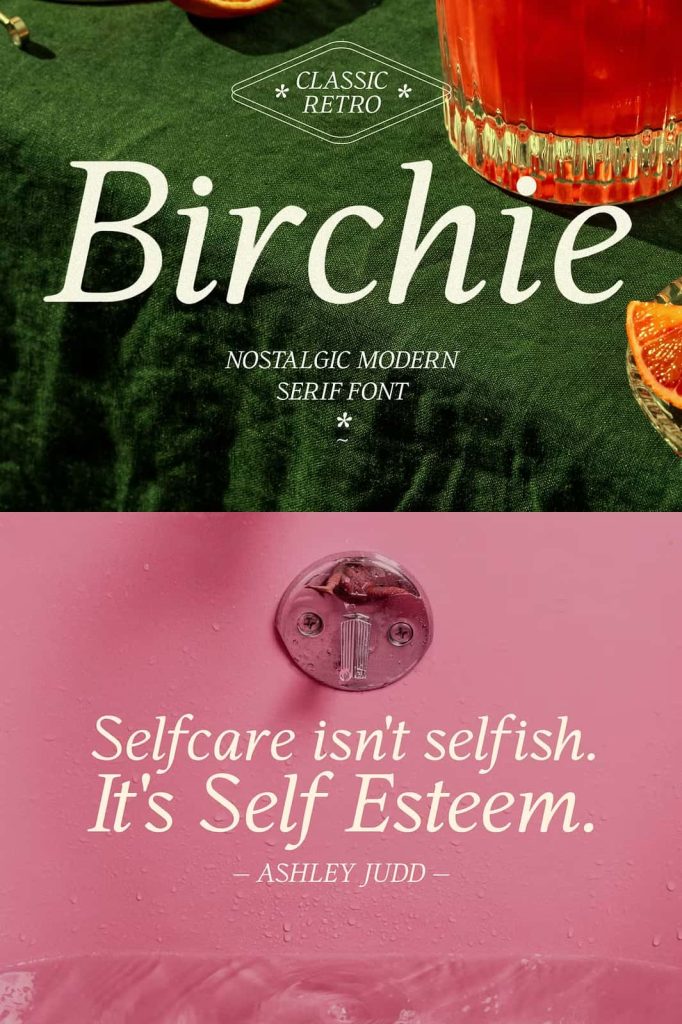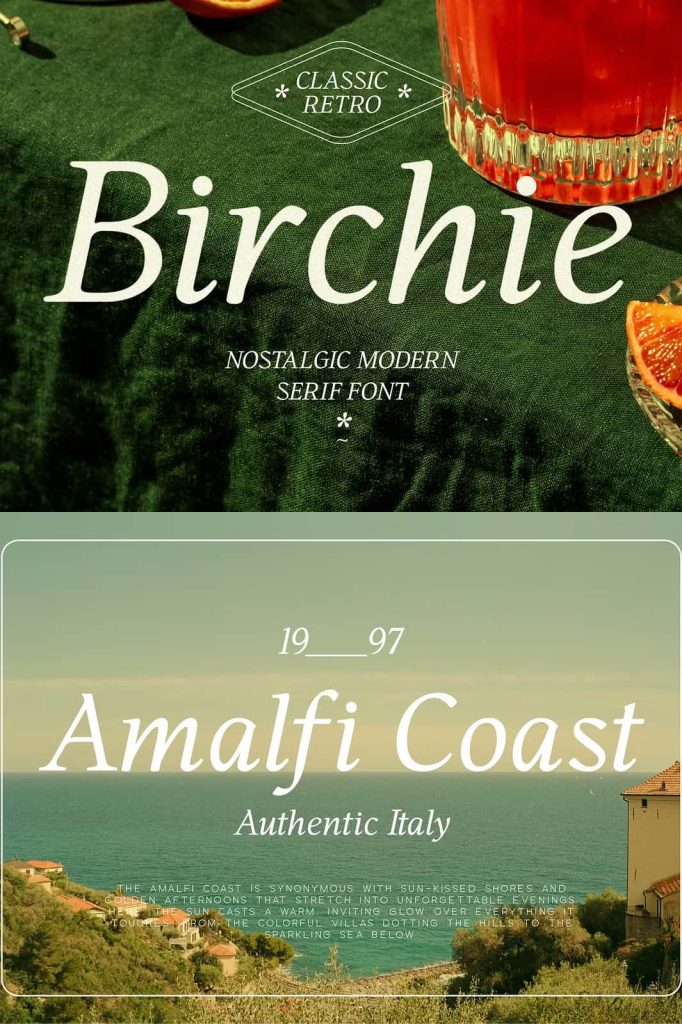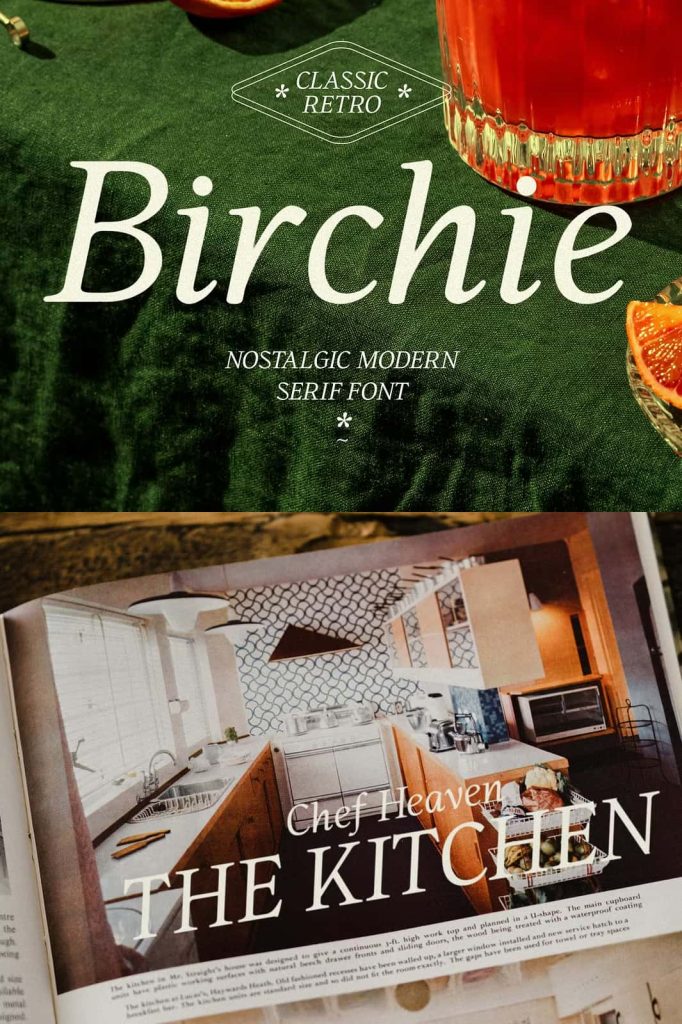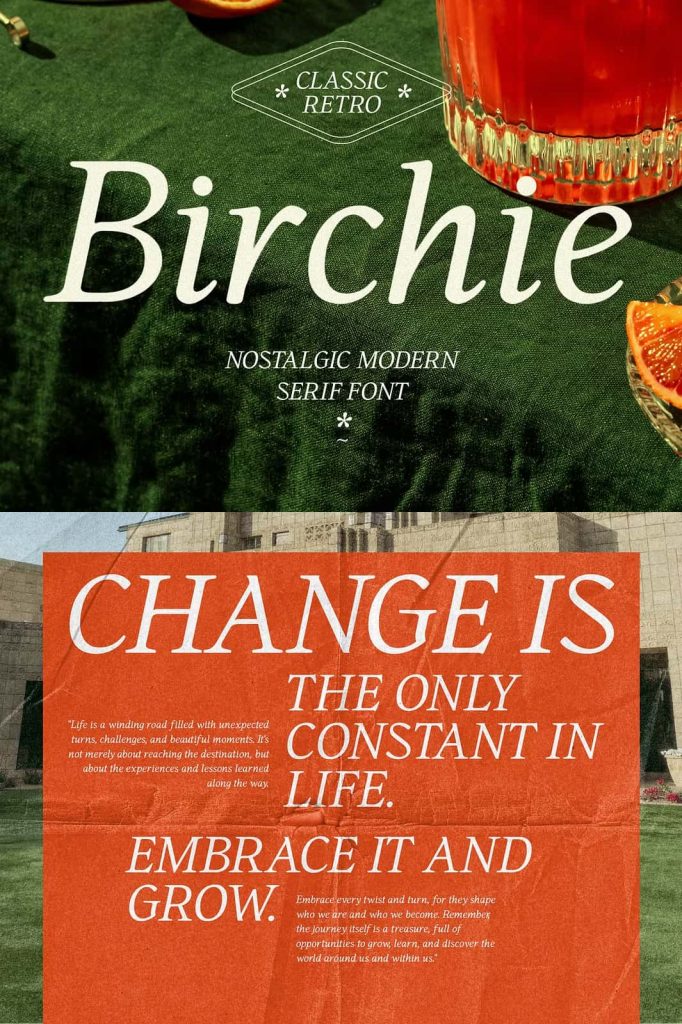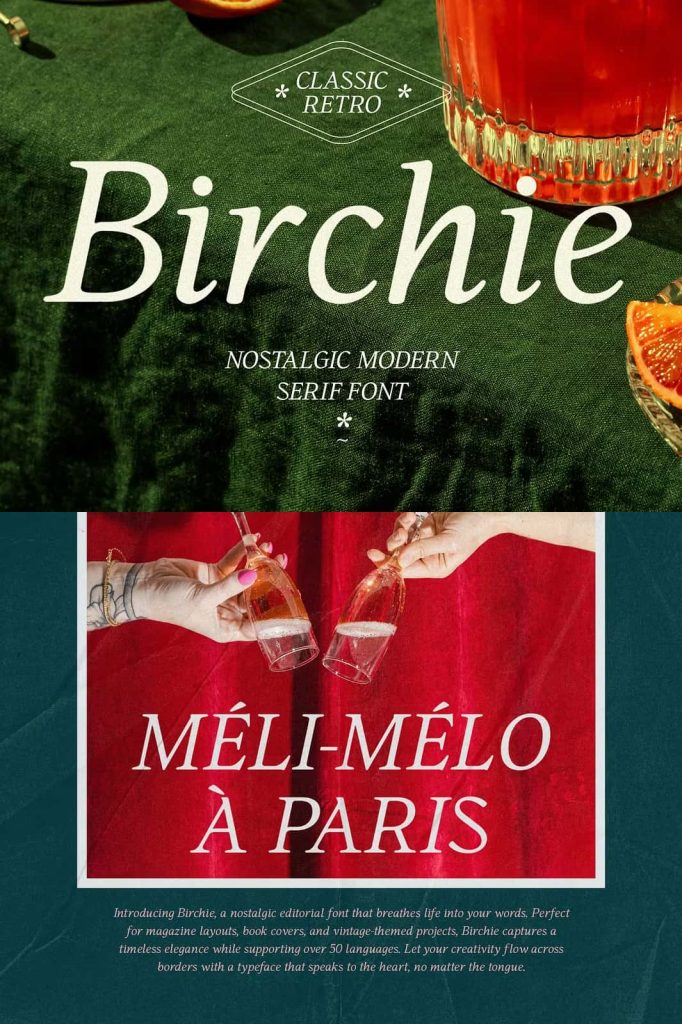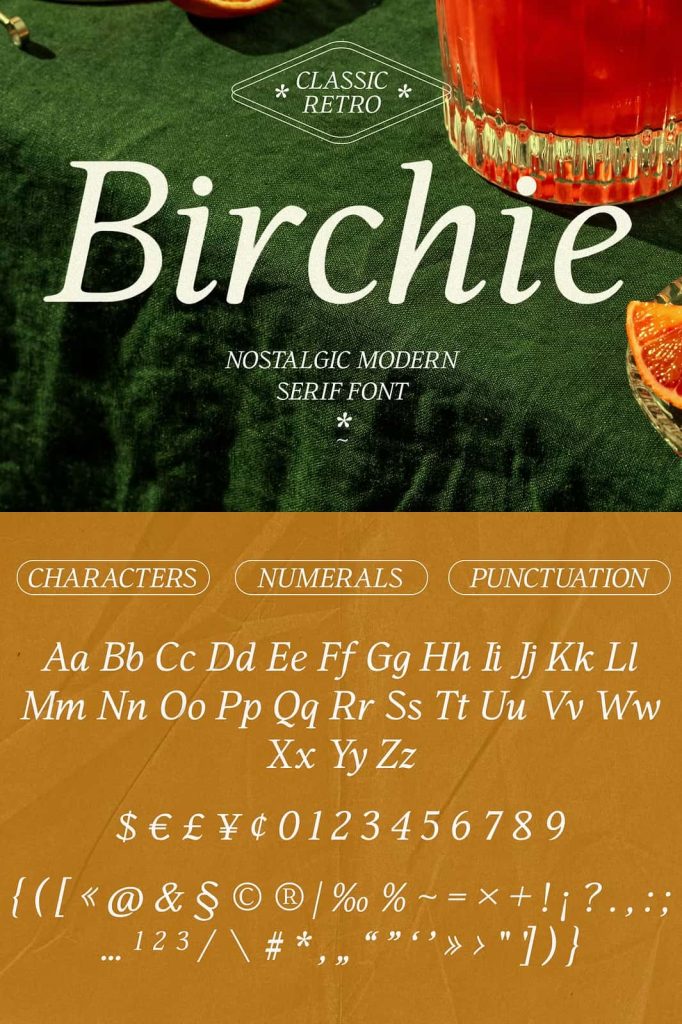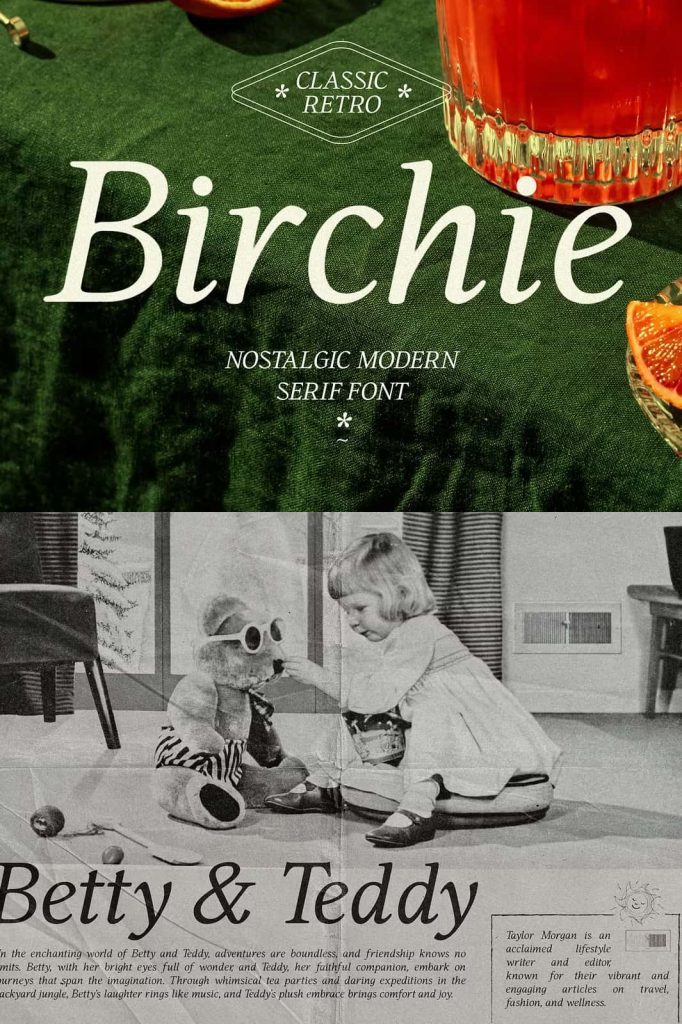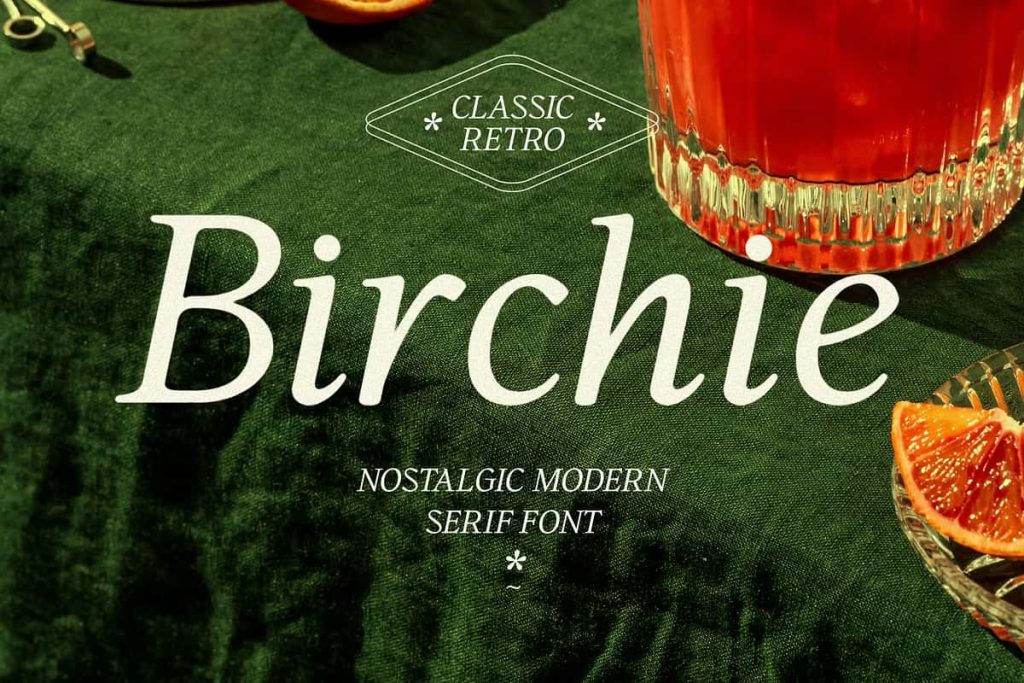
Birchie – Nostalgic Modern SerifleastedSeptember 2, 2025Fonts Birchie is a beautifully crafted serif font that seamlessly blends nostalgic charm with contemporary sophistication. Download